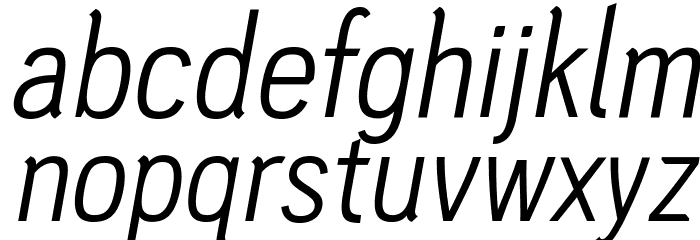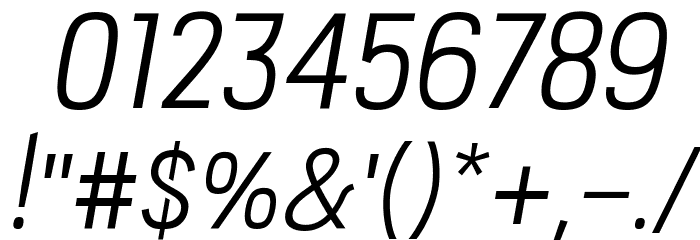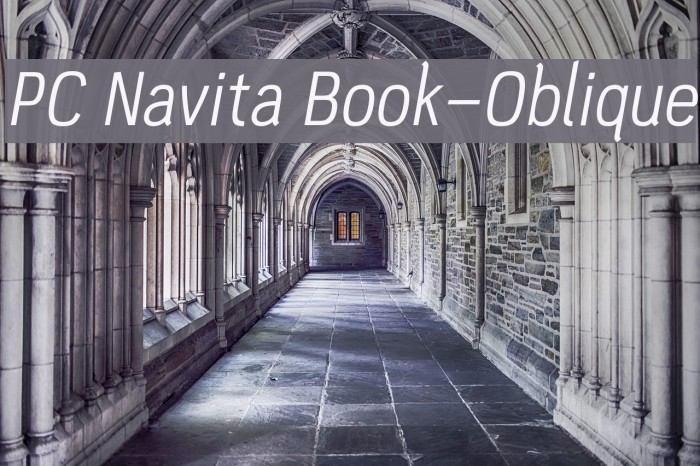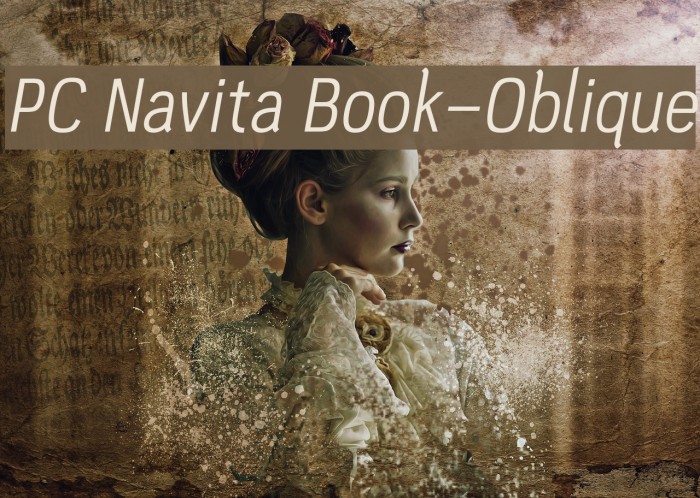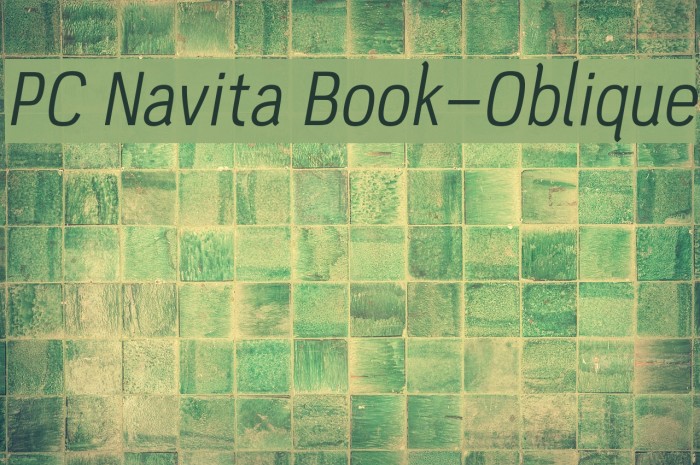
PC Navita Book-Oblique Font
This font exhibits a sleek and modern design with a slight oblique slant, giving it a dynamic and forward-moving appearance. The characters are clean and well-defined, with a uniform stroke width that maintains readability across both uppercase and lowercase letters. The numerals are consistent in style, matching the overall aesthetic of the alphabet characters. Special characters are included, providing versatility for various design needs. The font's simplicity and elegance make it suitable for a wide range of applications, from digital interfaces to print media.
A modern, oblique sans-serif font with clean lines and a dynamic slant.
- Proposed Projects: Ideal for branding, advertising, digital interfaces, and editorial design.